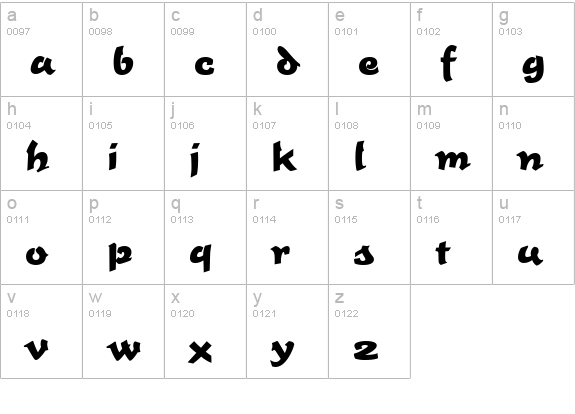
TimeScrDBol Font Details
TimeScrDBol is a stunning and versatile font that combines the elegance of a classic script with the boldness of a modern typeface. Designed to make a lasting impression, this font is perfect for a wide range of creative projects, including logos, branding, headlines, and more. With its unique letterforms and intricate details, TimeScrDBol adds a touch of sophistication and charm to any design. Its flowing strokes and graceful curves create a sense of movement and energy, while its bold weight commands attention and makes a powerful statement. What sets TimeScrDBol apart is not just its beauty, but also its accessibility. Unlike many high-quality fonts, TimeScrDBol is freely available to download at FontsMarket.com. This means that designers and creatives from all walks of life can enjoy the benefits of this exceptional font without any barriers. Whether you're a professional designer or a hobbyist, TimeScrDBol offers you the opportunity to elevate your work and create something truly remarkable. Its versatility allows it to shine in a variety of contexts, from elegant wedding invitations to eye-catching advertisements. So why wait? Unlock the potential of your designs with TimeScrDBol, a free font that combines timeless elegance with contemporary boldness. Download it now at FontsMarket.com and let your creativity soar.